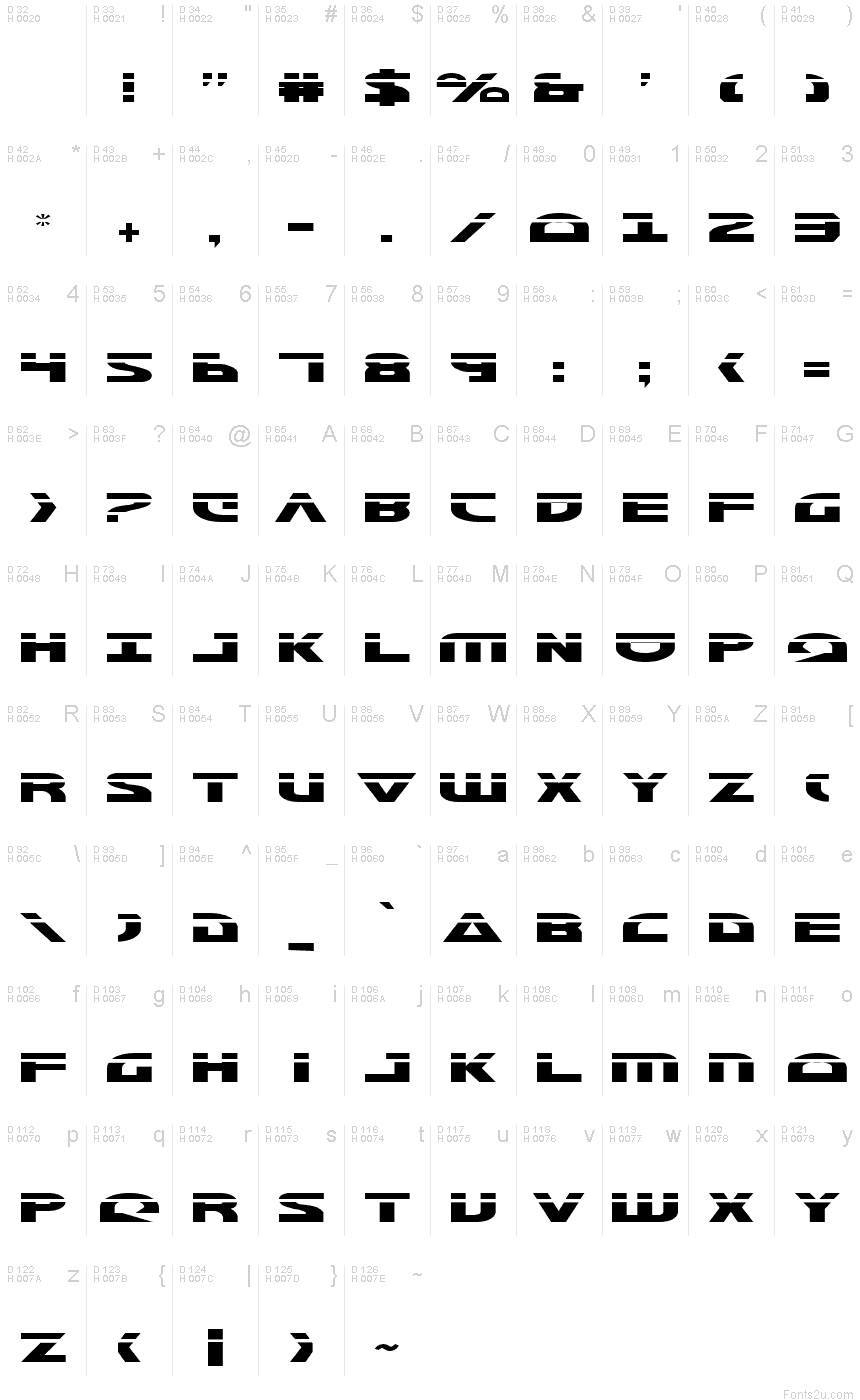
Morse NK Laser by Daniel Zadorozny of Iconian Fonts is a free techno display font built from broad, geometric capitals. Repeated horizontal cuts split the strokes into stacked bands, and the low, squared curves give the lettering a sleek machine-made profile.
Its science-fiction styling suits game interfaces and electronic music artwork, where the sliced forms resemble illuminated panels or scanning lines. The same construction can shape event posters and merchandise for technology-focused themes. It is most convincing in a logo, where the horizontal breaks become the brand mark.